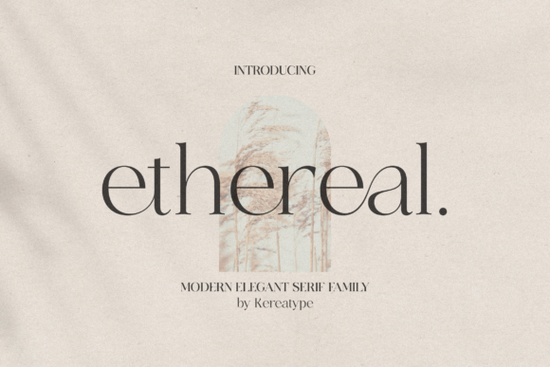
Looking for a serif font that feels modern, elegant, and just a little bit luxurious? The Ethereal font is a serif family designed for anyone who wants their branding, logos, or creative projects to look polished and refined. It comes with multiple weights and includes stylish extras like swashes and decorative glyphs all easily accessible thanks to PUA encoding.
Whether you run a small business, sell on Etsy, or just love making beautiful designs for fun, this font gives you a lot of creative flexibility without needing advanced design skills.
What Makes the Ethereal Font Different from Other Serif Fonts?
There are thousands of serif fonts out there, so what sets this one apart? The Ethereal serif family blends classic elegance with a contemporary, fashion-forward feel. The letterforms are clean and balanced, but the extra swashes and ligatures add a touch of personality that most traditional serifs lack.
It works well across a range of weights from light and delicate to bold and commanding so you can use it for both body text and headlines without switching typefaces. That kind of versatility saves time and keeps your designs looking cohesive.
Who Is This Font Best Suited For?
This font is a solid pick for a wide range of creatives. Here are a few people who tend to get the most out of it:
- Logo designers who need a sophisticated serif that stands out
- Print-on-demand sellers creating designs for mugs, t-shirts, and tote bags
- Wedding and event stationery makers looking for a romantic, high-end feel
- Small business owners building brand identity from scratch
- Crafters who use Cricut or Silhouette and want clean, easy-to-cut lettering
How Does It Compare to Other Elegant Serif Fonts?
If you're browsing serif fonts, you've probably seen a few similar options. Ronsa is another beautiful serif with a slightly more traditional feel, making it great for editorial layouts and book covers. If you want something even more ornate, Luxurimo leans heavily into luxury branding with dramatic contrast between thick and thin strokes.
For something with a bit more geometric structure, Gibs offers clean lines that work well in minimalist designs. And if you love the idea of a refined serif with a sweet, approachable twist, Georgia Praline is worth a look it pairs nicely with script fonts for feminine branding projects.
Each of these fonts has its own personality, but the Ethereal font sits in a sweet spot between modern minimalism and classic elegance. It doesn't try too hard, but it still makes an impression.
What Can You Actually Create with This Font?
Here are some real-world projects where this typeface shines:
- Brand logos The multiple weights let you find the right balance for your brand's voice
- Social media graphics Clean and legible even at smaller sizes
- Product packaging Works beautifully for cosmetics, candles, and artisan goods
- Website headers Pairs well with simple sans-serif body text
- Invitations and cards The swashes add a special touch without being over the top
Is the Ethereal Font Worth It?
If you regularly design logos, branding materials, or products that need a polished, upscale look yes. The variety of weights alone makes it more useful than a single-weight display font. And the PUA encoding means you're not limited by your software's glyph support.
For the price of one font family, you're getting a full toolkit that works across multiple project types. That's a good deal for designers at any level.
Quick Checklist Before You Buy
- ✅ Make sure the serif style fits your brand or project aesthetic
- ✅ Test the swashes and alternates to see if they work in your design tool
- ✅ Consider pairing it with a simple sans-serif for body text
Tip: Try setting a sample logo in two or three different weights before committing to a final design. The light and bold versions can feel like completely different fonts.